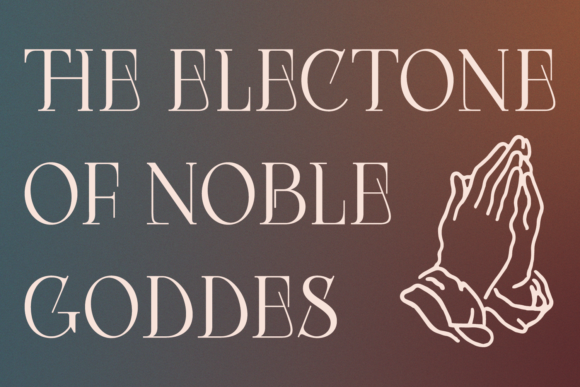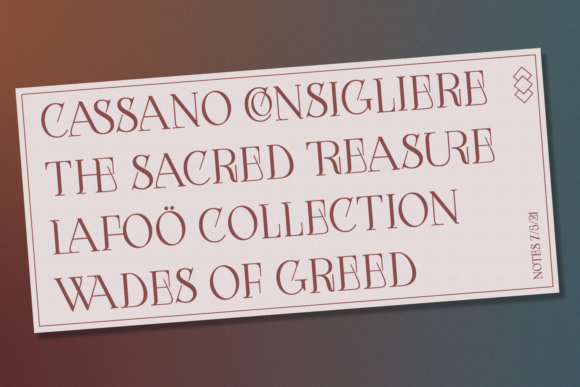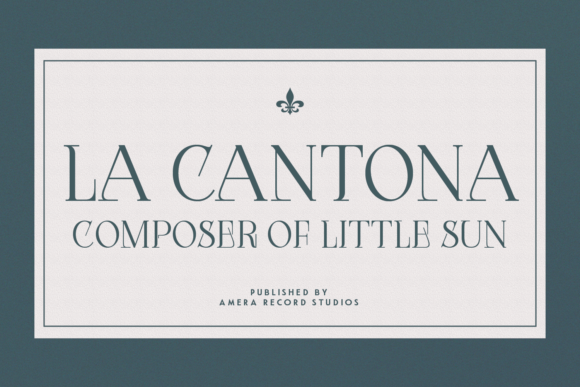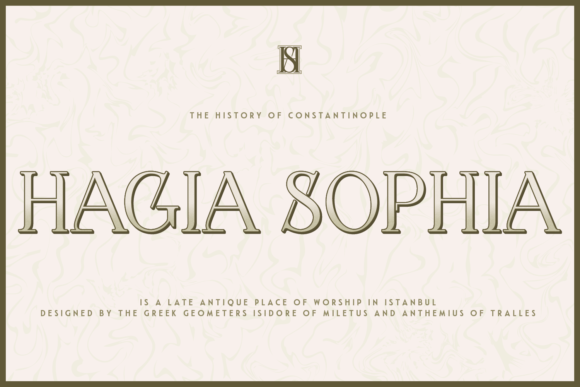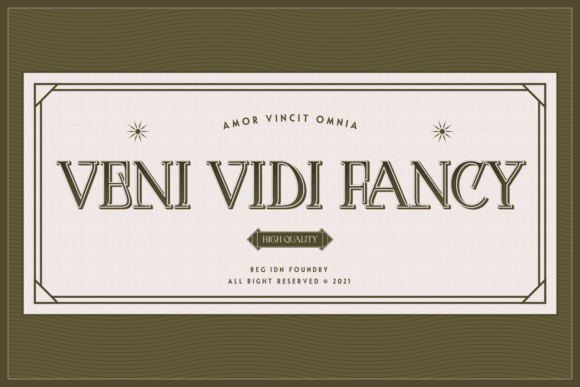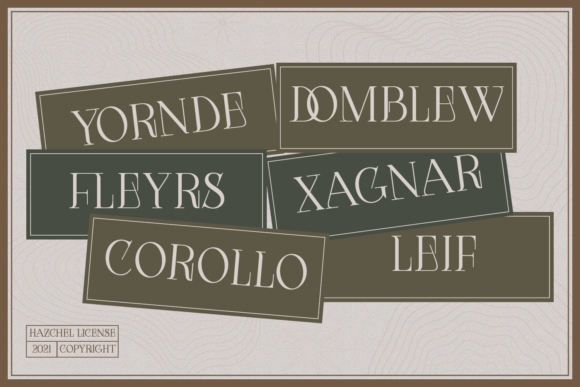
Introducing Hazchel Font: Elevate Your Designs with Elegance and Assertiveness
In the world of typography, a font can make or break a design. For designers and crafters looking for a typeface that exudes elegance, assertiveness, and a touch of trendiness, Hazchel Font is an excellent choice. This serif font has been gaining popularity for its versatility and aesthetic appeal, making it perfect for fashion branding, editorial designs, and a wide range of creative projects.
What Makes Hazchel Font Stand Out?
Hazchel Font is characterized by its clean lines, elegant curves, and a assertive presence that commands attention. Its serif design adds a touch of sophistication, making it suitable for high-end fashion brands, luxury editorial content, and any project that requires a refined look. The font’s versatility allows it to be used across various mediums, from digital platforms to print materials.
Perfect for Fashion Branding
Fashion brands require typography that not only reflects their aesthetic but also communicates their message effectively. Hazchel Font, with its elegant and assertive characteristics, is an ideal choice for fashion branding. It can be used for logos, headlines, and even body text, providing a cohesive and luxurious look to any brand’s visual identity.
Ideal for Editorial Designs
Editorial designs, including magazines, newspapers, and online publications, benefit greatly from typography that is both readable and visually appealing. Hazchel Font offers the perfect balance of elegance and readability, making it an excellent choice for article titles, subtitles, and even long-form content.
Why Choose Hazchel Font?
- Elegance: Hazchel Font brings an air of sophistication to any design, making it perfect for projects that require a touch of luxury.
- Assertiveness: Its bold and confident presence ensures that your message is conveyed effectively, grabbing the attention of your audience.
- Versatility: From fashion branding to editorial designs, Hazchel Font adapts seamlessly to various contexts, making it a valuable addition to any designer’s toolkit.
- Trendiness: With its contemporary design, Hazchel Font is perfect for projects that require a modern and fresh look.
| Font Name | Hazchel Font |
| Author | amera.type |
Hazchel Font is more than just a typeface; it’s a design statement. Its blend of elegance, assertiveness, and trendiness makes it an invaluable asset for designers and crafters looking to elevate their projects. Whether you’re working on fashion branding, editorial designs, or any creative endeavor, Hazchel Font is sure to deliver impressive results. Add it confidently to your projects, and experience the transformative power of typography.